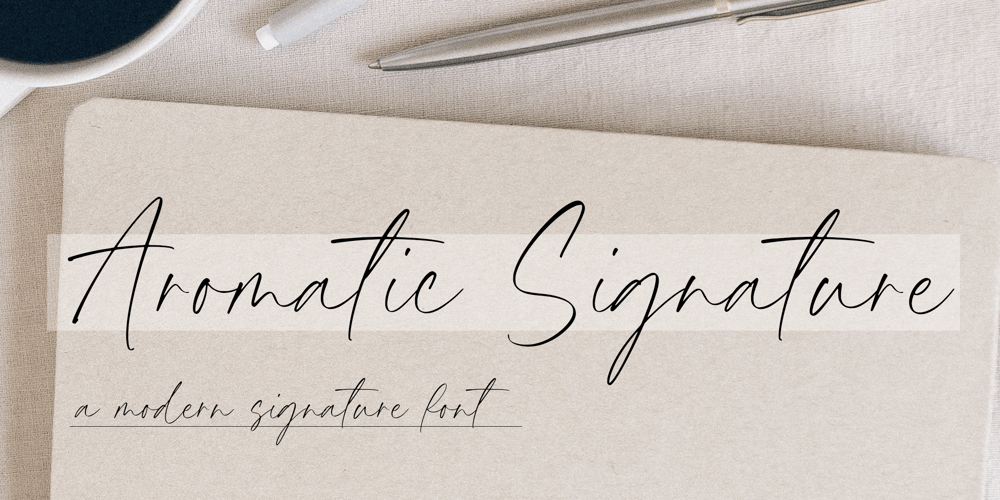
Aromatic Signature
Aromatic Signature font
Aromatic Signature Font Family was designed by Wara Sigit Tri Pamungkas and published by Timurtype. Aromatic Signature contains 1 styles and family package options. Introducing by Timur typeProudly Present, Aromatic Signature A Handwritten FontAromatic Signature is perfect for product packaging, branding project, megazine, social media, wedding, or just used to express words above the background.Aromatic Signature also multilingual support.Enjoy the font.Thank you!